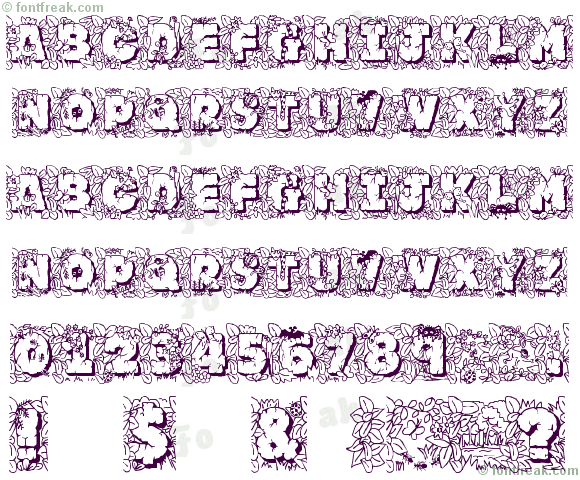
JFJungleRock
About Jungle Rock
Jungle Rock, crafted by Jester Font Studio, is a captivating display typeface that evokes a sense of adventure and playfulness. This whimsical font features bold, rounded letterforms with a chunky stroke weight, creating a strong presence that draws attention. The design showcases a delightful contrast between thick and thin lines, which adds visual interest and character. Each letter is spaced generously, ensuring clarity and readability even in larger settings. The playful nature of Jungle Rock is further enhanced by its decorative elements, including organic shapes and a slightly uneven baseline that mimics the untamed spirit of a jungle.
Given its unique style, Jungle Rock is ideal for a variety of creative applications. It shines in projects such as jungle-themed party invitations, adventurous movie posters, and vibrant restaurant menus that aim to capture the essence of nature. Graphic designers will find it particularly appealing for branding elements that require a lively touch, while small business owners can leverage its charm to create eye-catching promotional materials. Content creators looking to add a fun flair to their social media graphics or blogs will also benefit from the font's energetic aesthetic.
What sets Jungle Rock apart is its ability to blend a playful spirit with bold, eye-catching design, making it a versatile choice for various projects. The Jungle Rock font free download opens up endless possibilities for creativity, inviting users to embark on their own adventurous design journeys with this distinctive typeface.